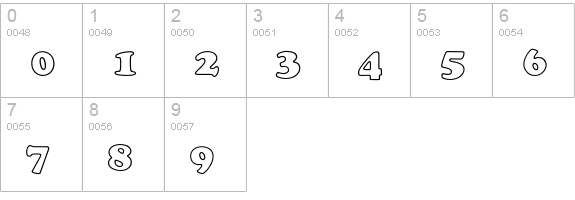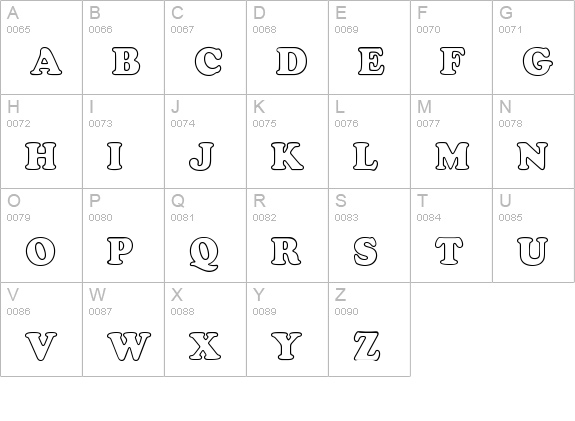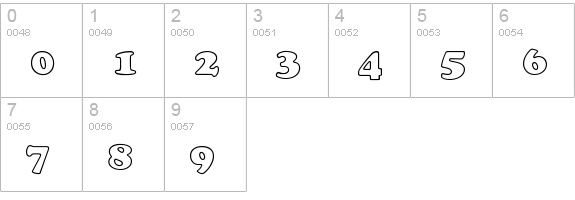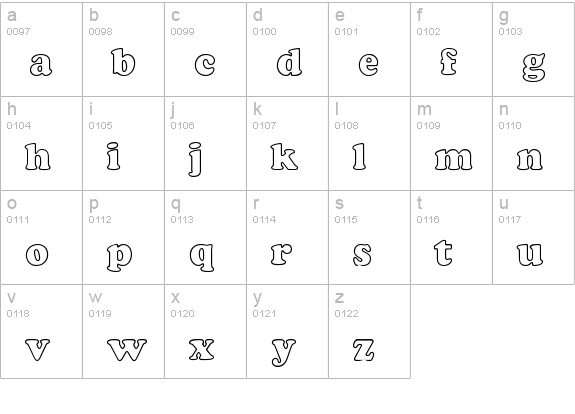
Cooper Black Outline is a maximum-weight, dramatic variant in the Cooper typeface family \xE2\x80\x94 well suited to maximum-impact headlines, posters, and packaging.
Cooper Black Outline font is a bold and eye-catching typeface that exudes a sense of strength and confidence. The outline design adds a unique touch to any text, making it stand out and grab attention. Whether used for headers, logos, or other design projects, this font is sure to make a bold statement. The best part is that Cooper Black Outline font is available for free download at FontsMarket.com. This means that you can easily access and use this stylish font for all your creative endeavors without any cost. Don't miss out on this fantastic opportunity to enhance your designs with the striking Cooper Black Outline font. Download it now and let your creativity shine!